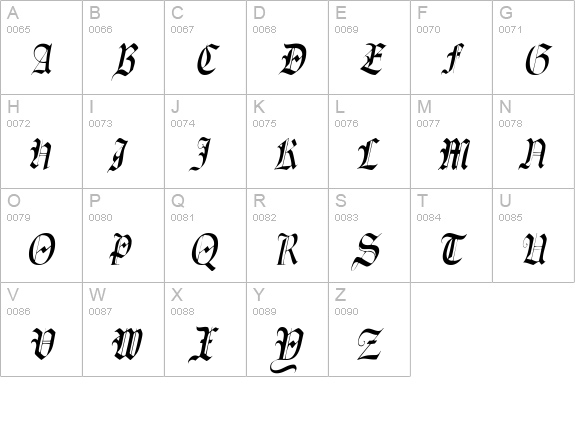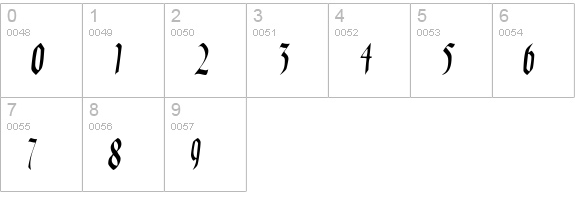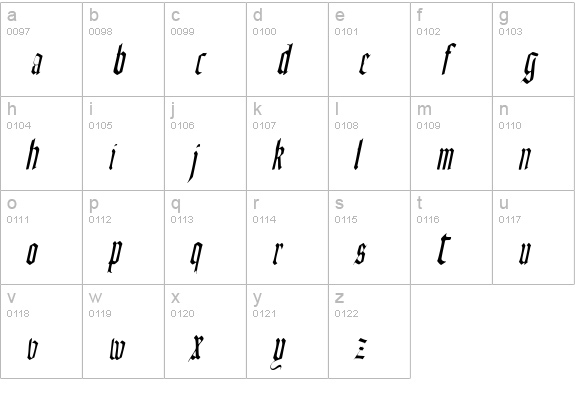
Fains Italic Font Details
Fains Italic is a distinctive, italic variant in the Fains typeface family \xE2\x80\x94 well suited to design and typography projects.
Fains Italic font is a stunning typeface that exudes elegance and sophistication. Its sleek and stylish design makes it perfect for adding a touch of class to any project. The italicized letters flow gracefully, creating a sense of movement and fluidity on the page. What sets Fains Italic font apart is that it is not only visually appealing but also free to use. This means that you can elevate your designs without having to worry about breaking the bank. Whether you are working on a branding project, a website design, or any other creative endeavor, Fains Italic font is sure to make a lasting impression. You can easily download Fains Italic font for free at FontsMarket.com. Take advantage of this fantastic offer and enhance your projects with the timeless beauty of Fains Italic font today!